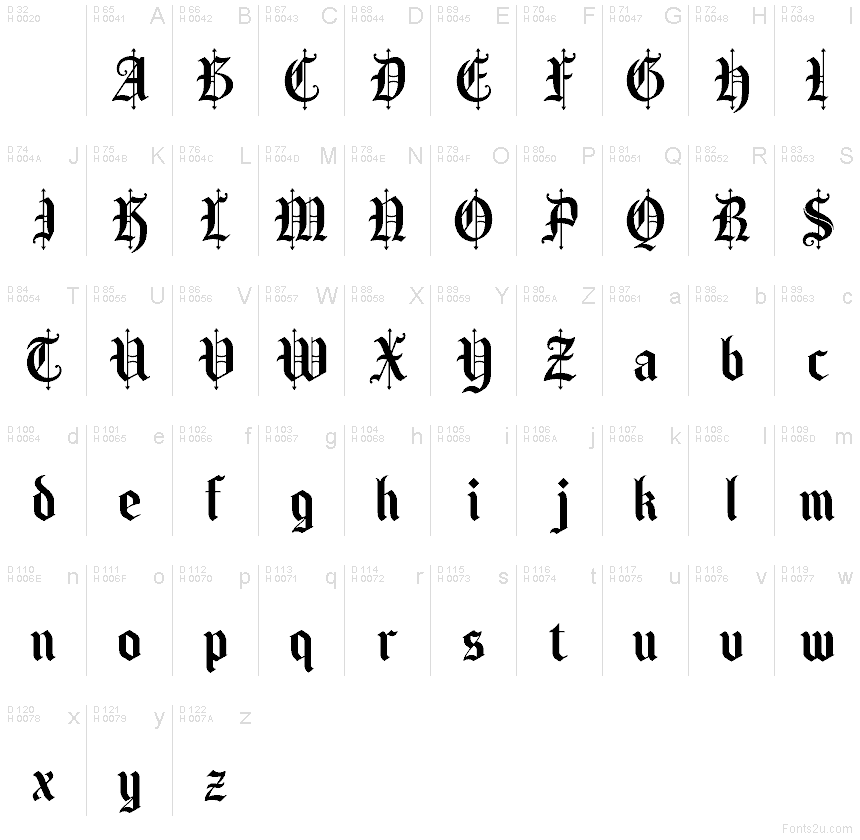
CS Saunter Regular Demo
CS Saunter font is a gothic medieval font that mimics the design style of the incredible Gothic era. The blackletter font takes us back to the Middle Ages and allows for magnificent projects that join its aesthetic beauty with its functionality.
Use CS Saunter for your dungeons and dragons projects, manga, gothic novels, or history illustrations, infographics, etc. It can also be used for product packaging design and branding projects.